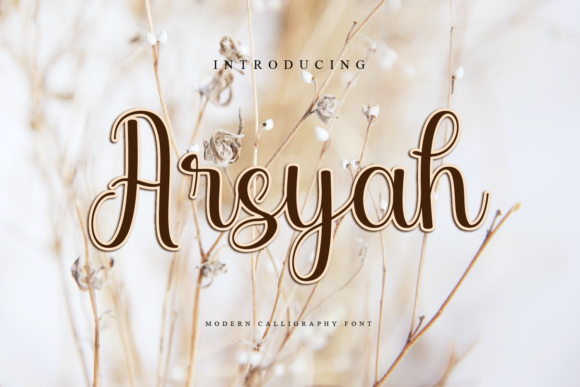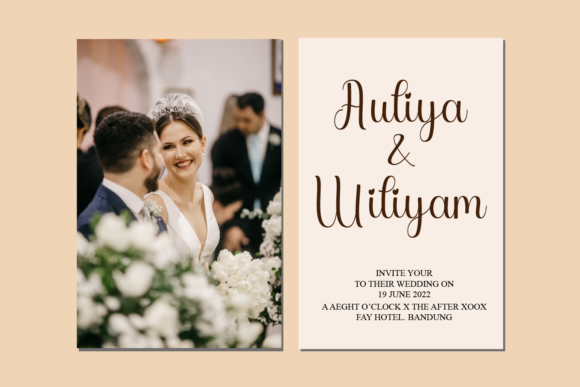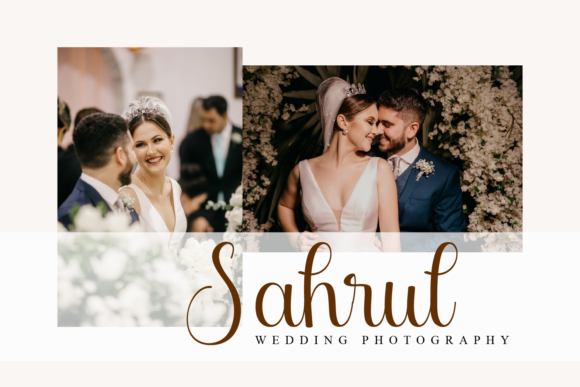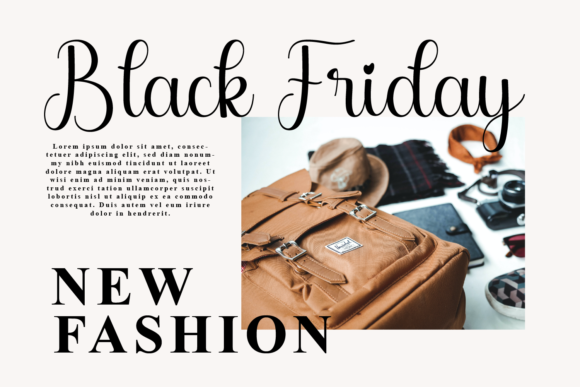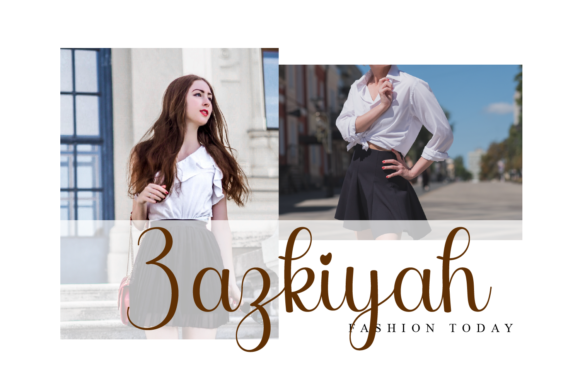
About Arsyah Font
Arsyah is a lovely and timeless handwritten font. It is the best choice for creating eye catching logos, branding and quotes. Every letter has a unique and beautiful touch, which will make your design come alive!